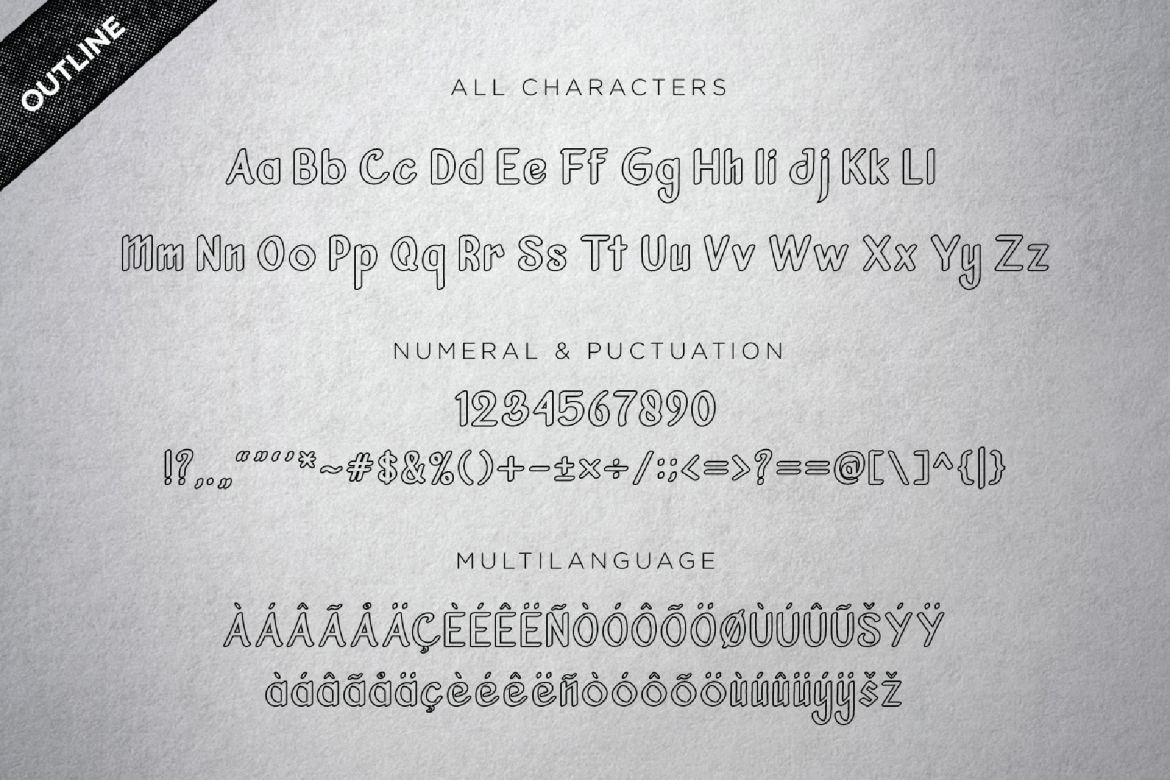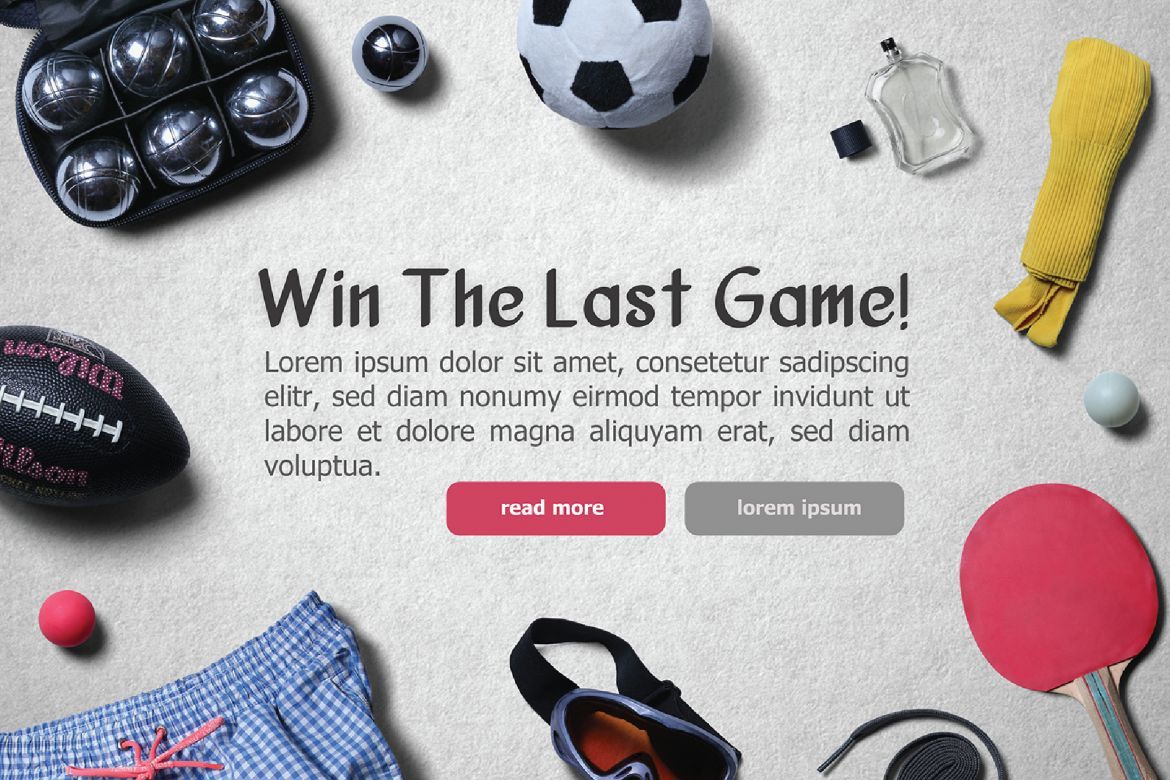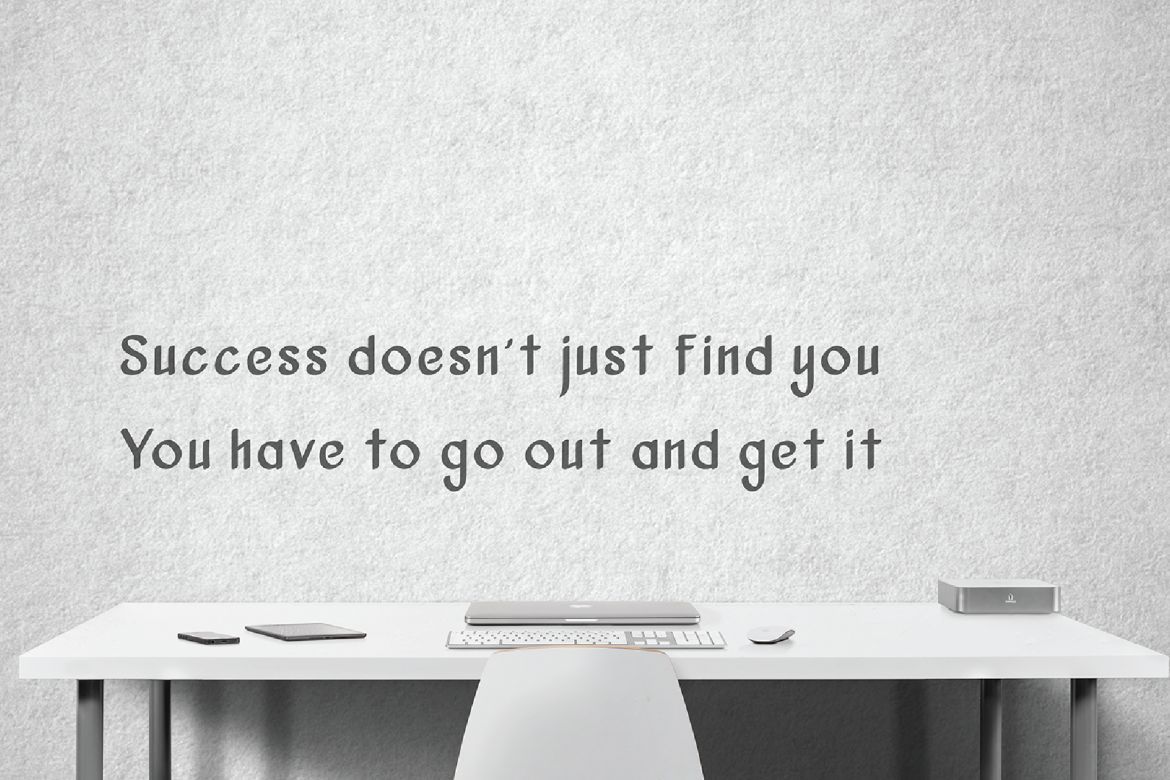
Vanjar Font
Vanjar is strong capitals and a smooth font, open lowercase is effective in a variety of applications. Hansville works great in branding, logos, headlines, high fashion, web design. The different weights give you a full range to explore a whole host of applications, from a tech startup, local events to sports matches.
• Complete set of lower and uppercase letters
• Punctuation & Numbers
• Multilingual support